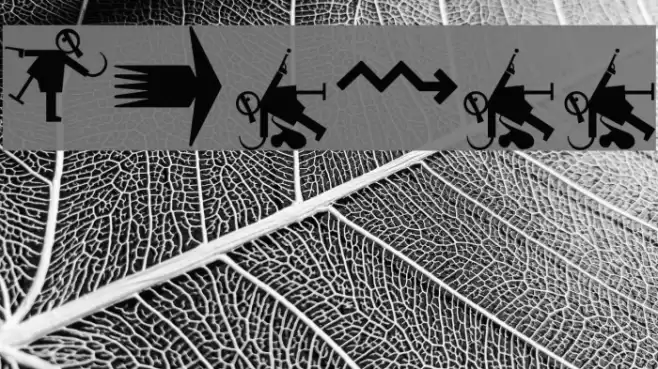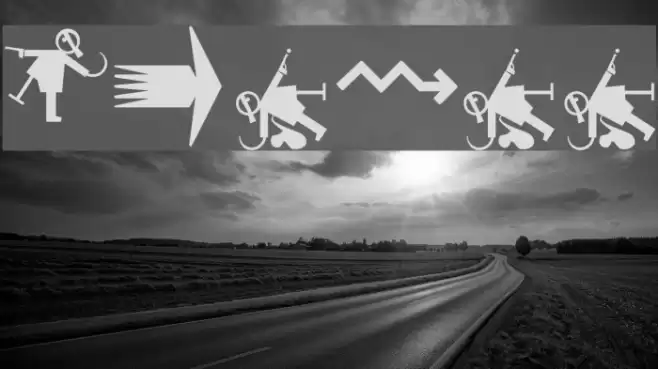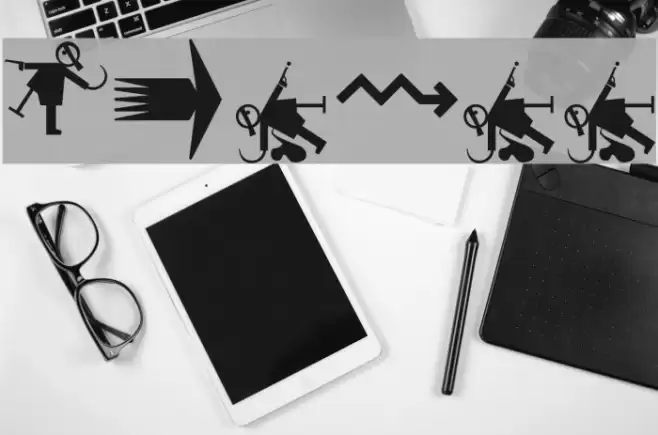
Prothesis-Caripix Font
Prothesis-Caripix Description
A highly decorative and illustrative font composed of abstract symbols, arrows, and stick-figure characters, each glyph resembling a pictogram or playful drawing rather than traditional letterforms.
Whimsical pictogram font with abstract and stick-figure characters from Uncategorized fonts.
- Proposed Projects: Children's books, educational materials, playful posters, creative branding, art projects.
- Overall Style: Decorative, Playful, Artistic
- Use Case: Logos, Posters, Art projects, Children's content